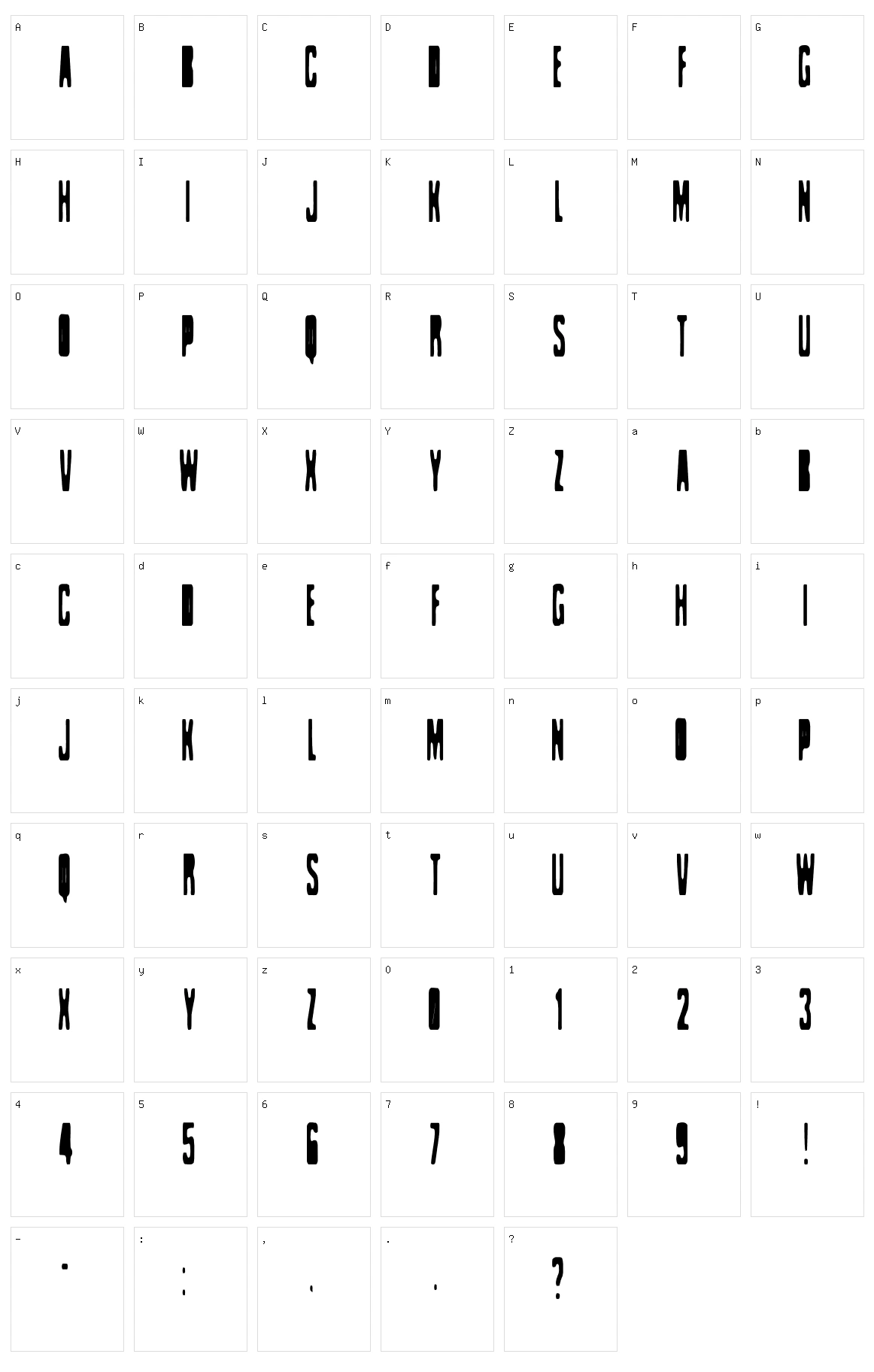
The free font Celofan is carefully designed by PitDGulash, showcasing a thoughtful balance of creativity and usability and falls under the Eroded font style. When you download the ZIP file, it contains only 8.97 KB of font files, making it lightweight and quick to download. Please review the license details below to understand permitted usage and distribution rights. If license information is not available, we recommend using this font for personal projects only or contacting the author directly for commercial usage permissions.
Czcionka CELOFAN jest mojego autorstwa,
zawiera du¿e litery, cyfry
oraz niektóre znaki interpunkcyjne.
The font CELOFAN that was designed by me,
contains large letters, digits
and some punctuations.